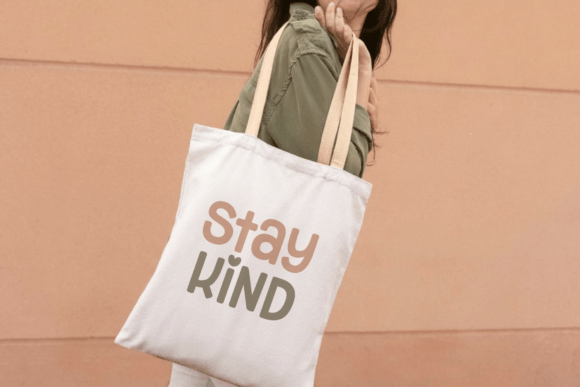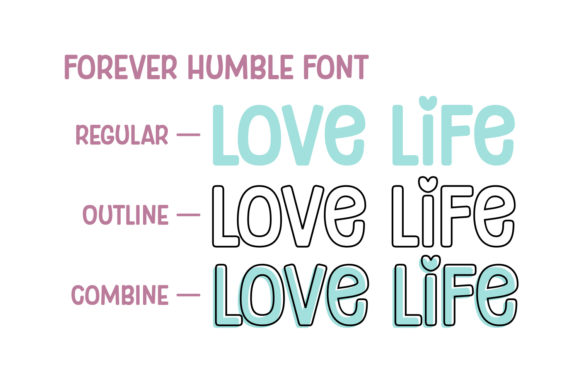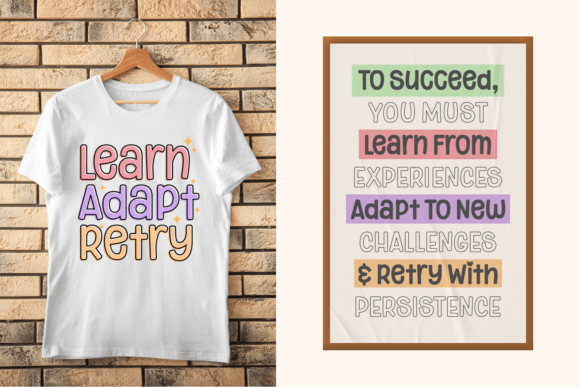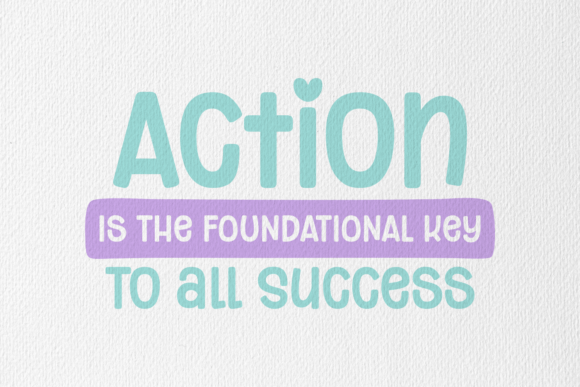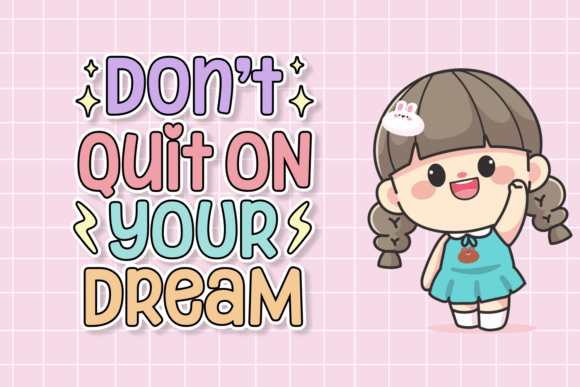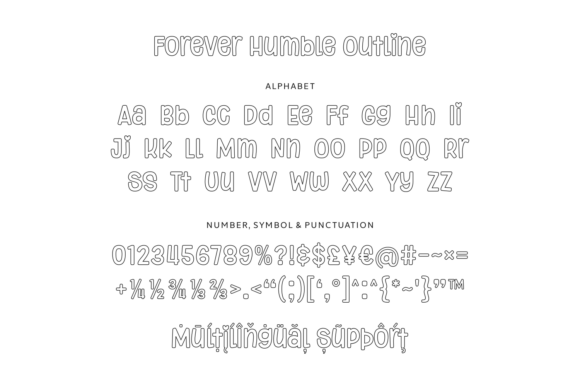
The Power of Typography: How Forever Humble Font Can Elevate Your Design
I’ll never forget the time I was working on a project for a children’s apparel brand. I had a clear vision of what I wanted to create, but something was missing – the perfect font. I scoured the internet, tried out countless typefaces, but none seemed to capture the essence of the brand. That was until I stumbled upon Forever Humble Font. ✨
This delightful display typeface has been a game-changer for my design work, and I’m excited to share its charm with you. Forever Humble Font is characterized by soft, rounded sans-serif letterforms, a rhythmic, clean outline, and an airy structure that feels both modern and sweet.
- ✨ Friendly and approachable vibe that’s perfect for lifestyle branding and children’s apparel design
- ✅ Clean and modern outline that works well for both digital and print materials
- ✅ Wide range of OpenType features, including stylistic alternates and glyphs
- ⚠️ Limited use for formal or corporate designs, as it’s quite playful and whimsical
- 🤔 May not work well for very long paragraphs of text, as it’s optimized for display use
The Story Behind Forever Humble Font
Forever Humble Font was designed with the intention of creating a typeface that exudes kindness and charm. The designer, inspired by the warmth and friendliness of handwritten fonts, set out to create a font that would be perfect for lifestyle branding, children’s apparel design, and social media headers.
Q: What type of projects is Forever Humble Font best suited for?
A: Forever Humble Font is perfect for independent lifestyle branding, positive quote illustrations, children’s apparel design, and high-impact social media headers.
Q: Does Forever Humble Font come with OpenType features?
A: Yes, Forever Humble Font features a range of OpenType features, including stylistic alternates and glyphs.
Q: Can I use Forever Humble Font for body text?
A: While Forever Humble Font is highly legible, it’s optimized for display use. For longer paragraphs of text, you may want to consider a different font.